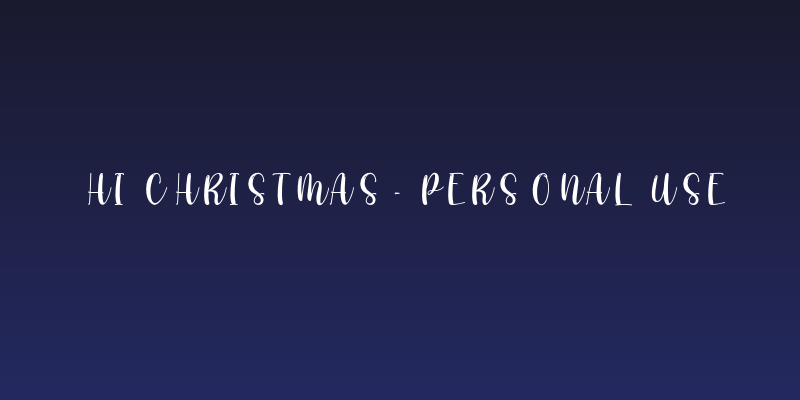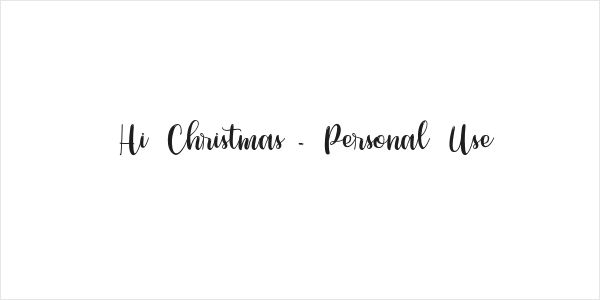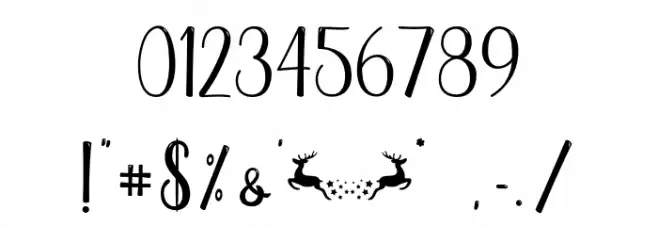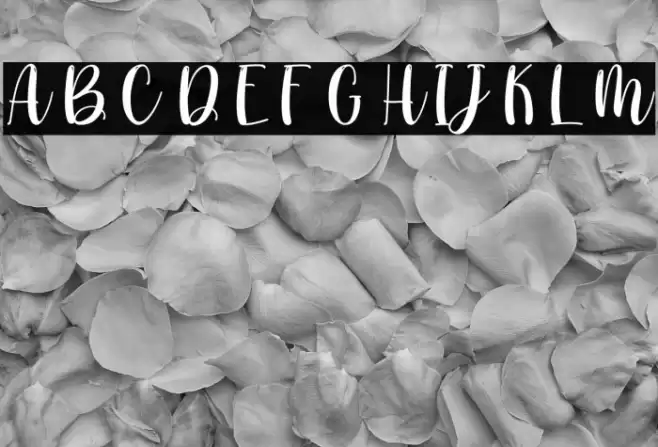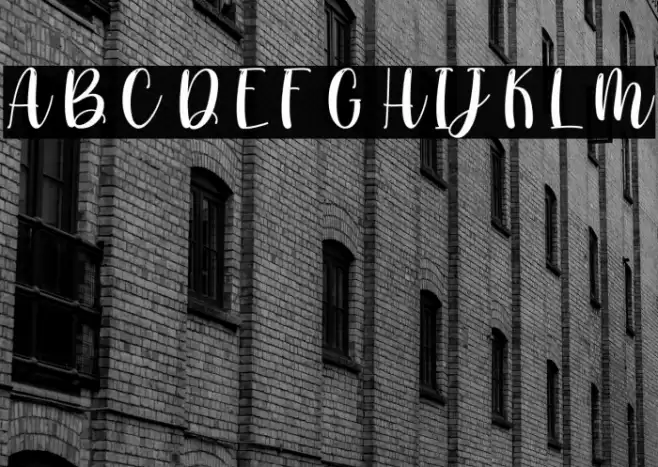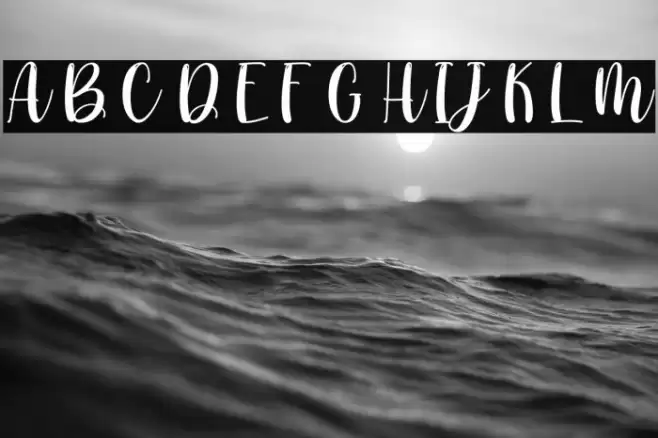
Hi Christmas - Personal Use Font
This font features a whimsical and festive style, perfect for holiday-themed projects. The uppercase letters are bold and slightly slanted, with a playful, handwritten quality. The lowercase letters are more intricate, with elegant loops and flourishes that add a touch of sophistication. The numbers are clean and easy to read, maintaining the playful aesthetic. Special characters include charming holiday motifs, such as reindeer, which enhance the festive feel. Overall, this font combines a sense of fun with elegance, making it ideal for creative and decorative uses.
| Use Case | Headlines, Logos, Decorative text |
| Proposed Projects | Ideal for holiday cards, festive invitations, seasonal branding, and decorative signage. |